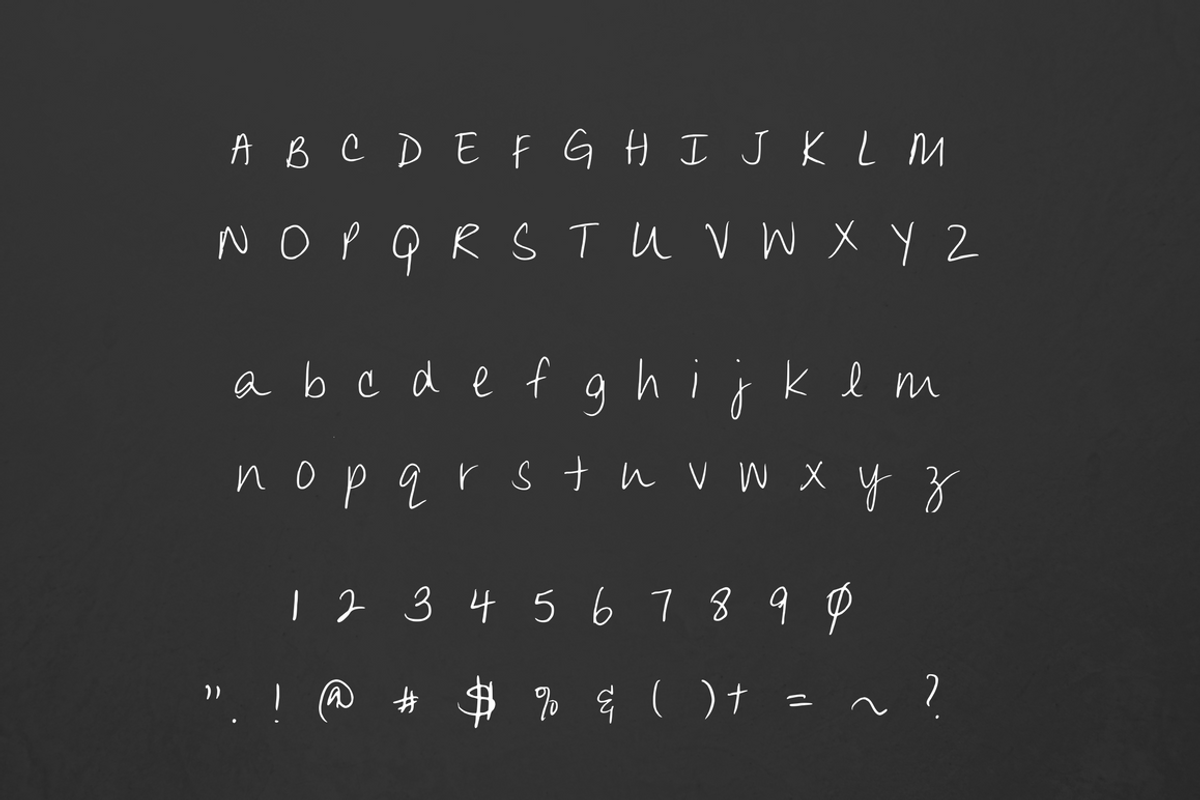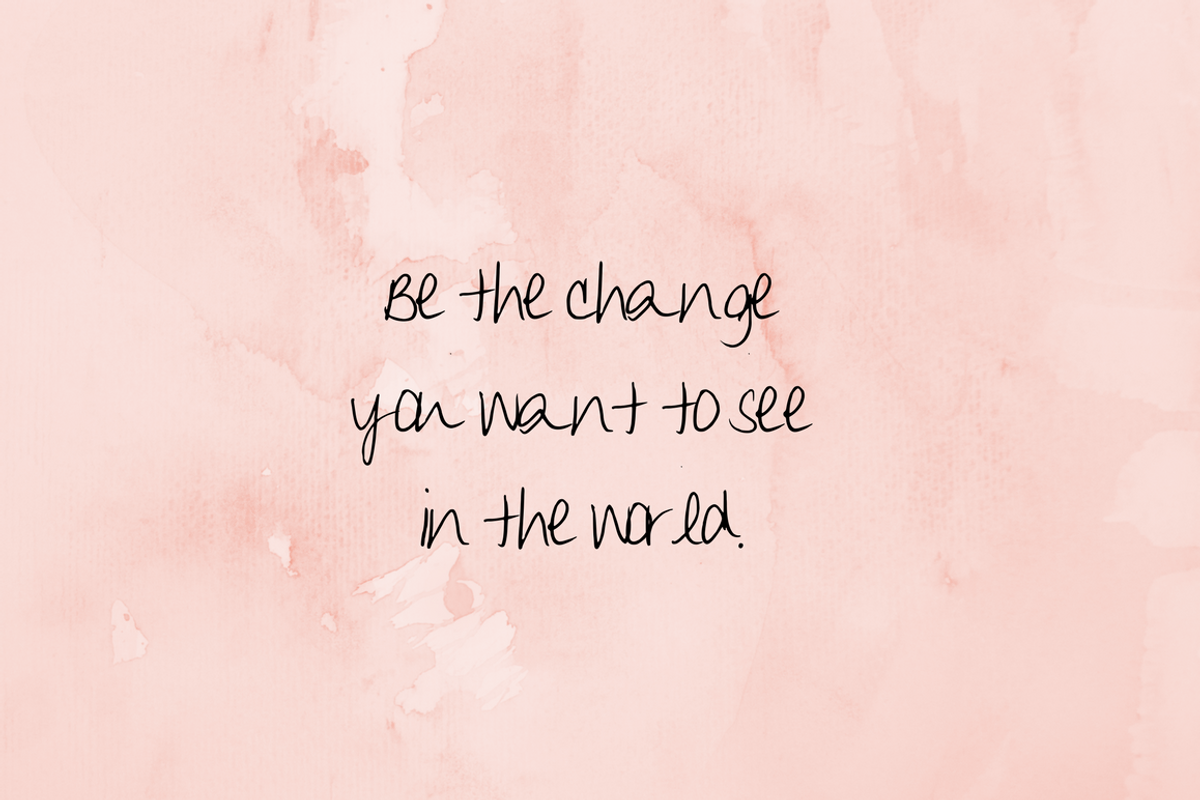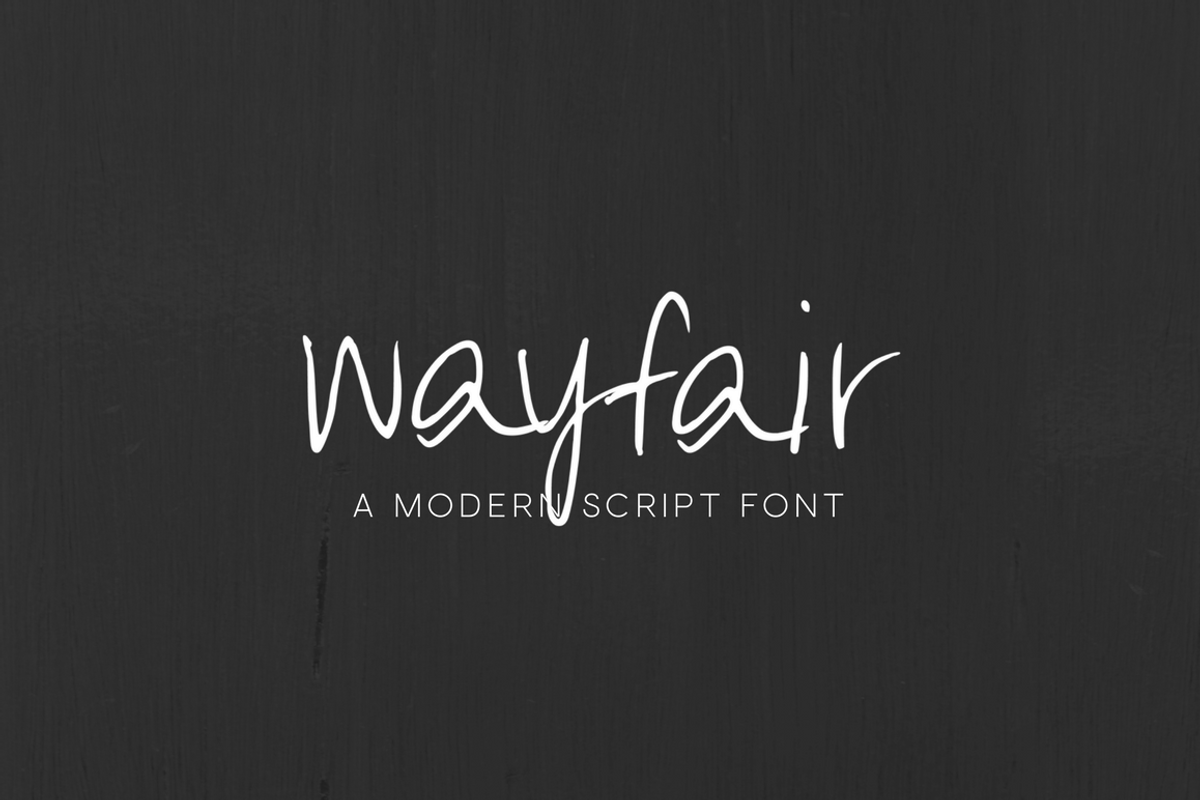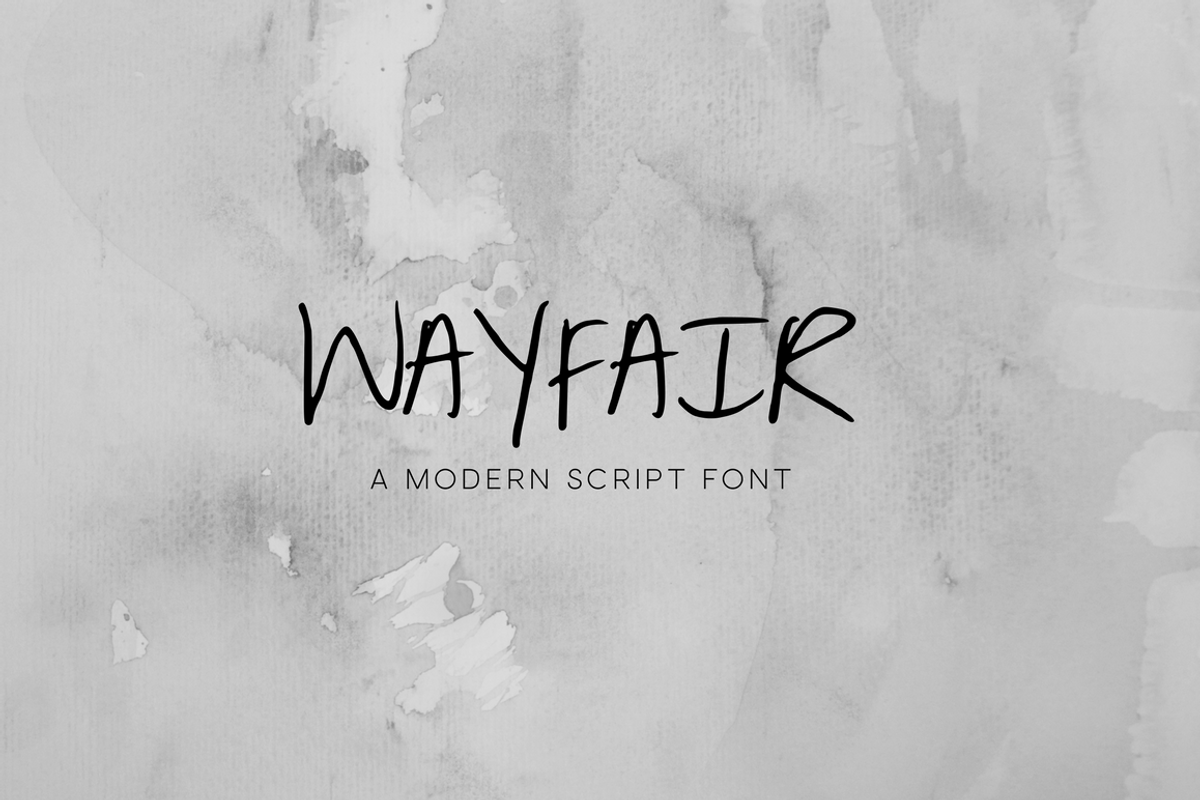
Wayfair - Modern Script Font - SALE
Introducing Wayfair a fun, modern script font created by Black Dahlia Press.
- Uppercase, lowercase, numerals + punctuation included.